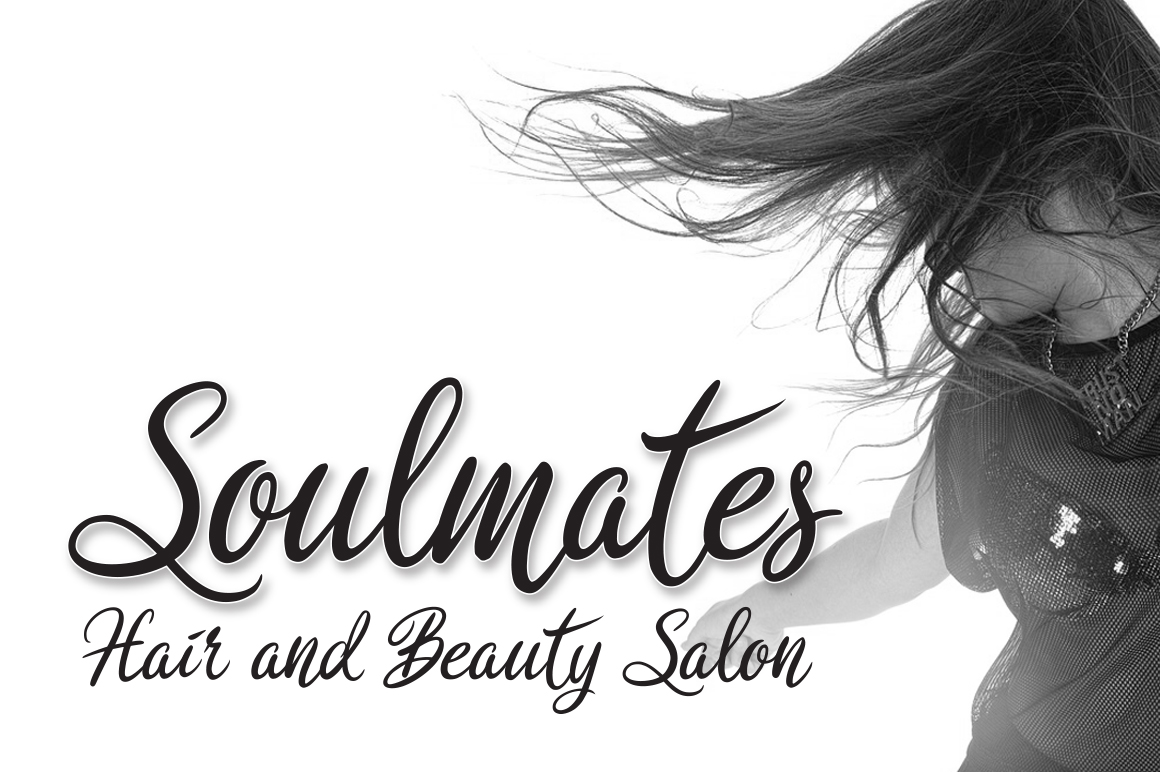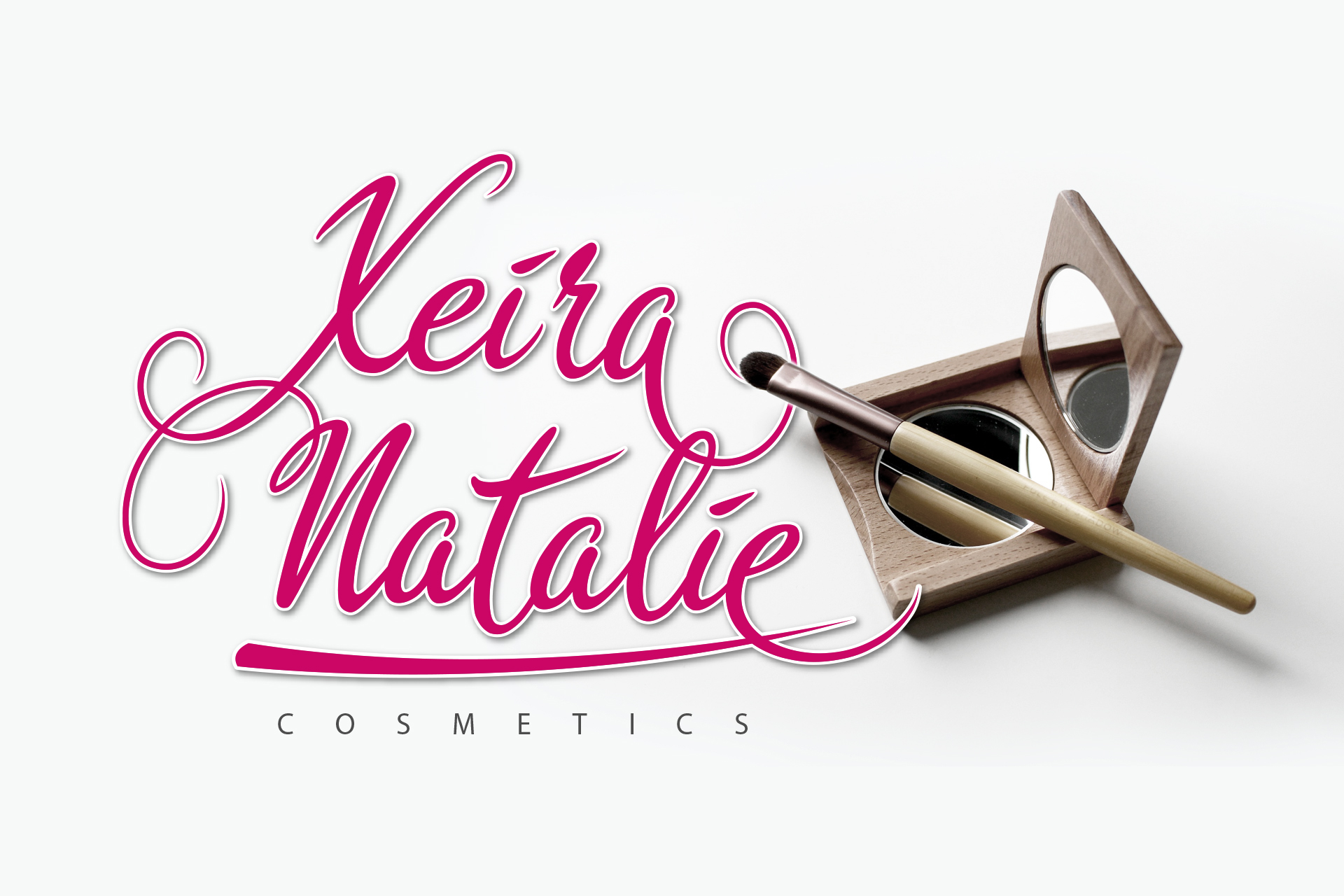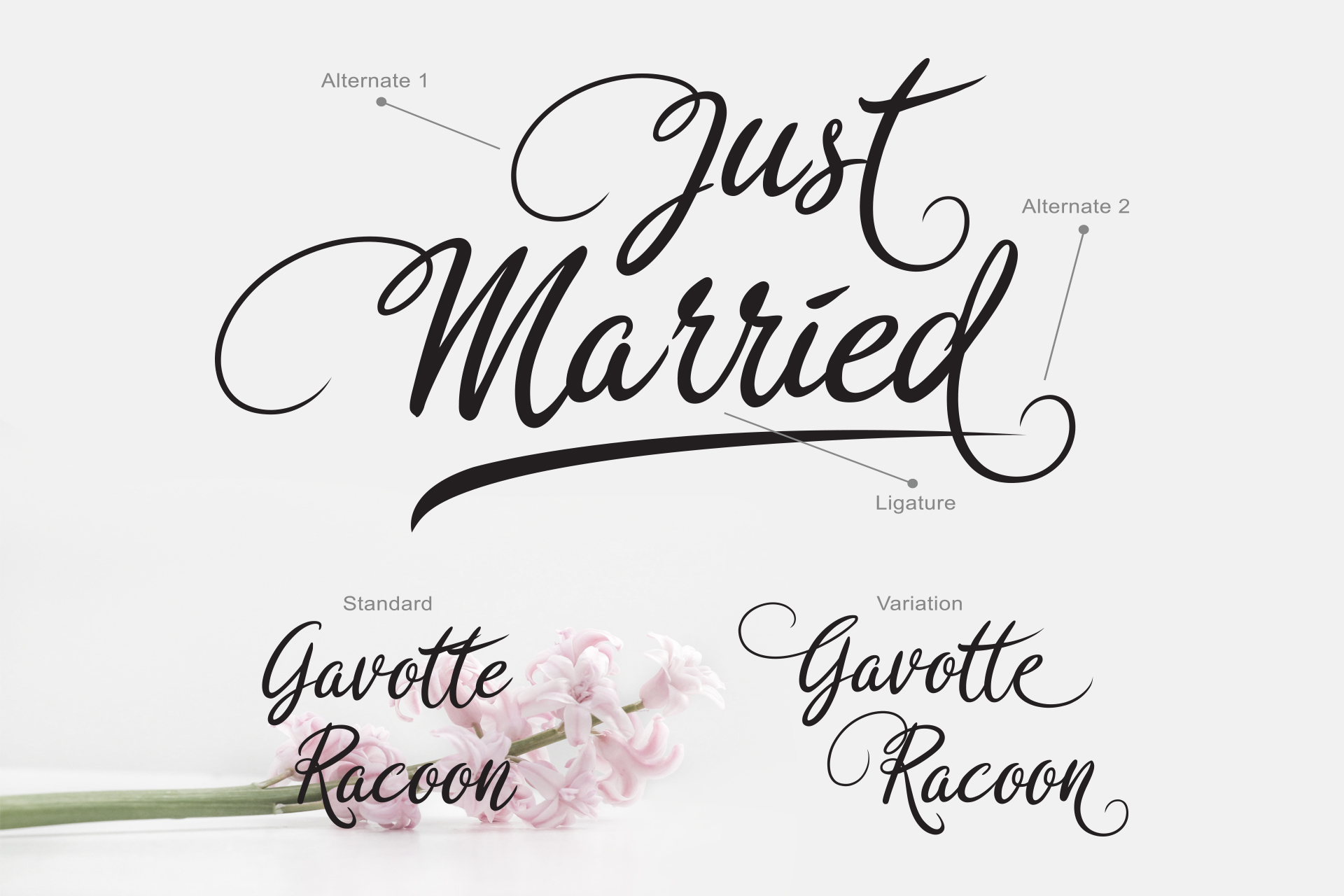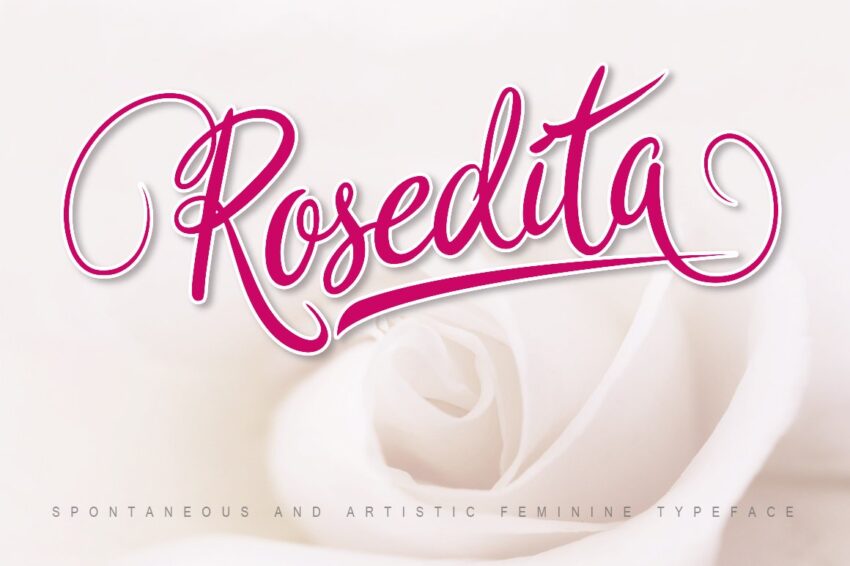
Introduction to Rosedita Font
The Rosedita Script is a handwritten calligraphy font that works great in many different types of projects.
Key Features of Rosedita Font
Why Choose Rosedita Font?
Rosedita Font offers exceptional quality and versatility, making it a valuable addition to your design toolkit. Whether you’re creating for personal projects or commercial use, Rosedita Font delivers professional results.